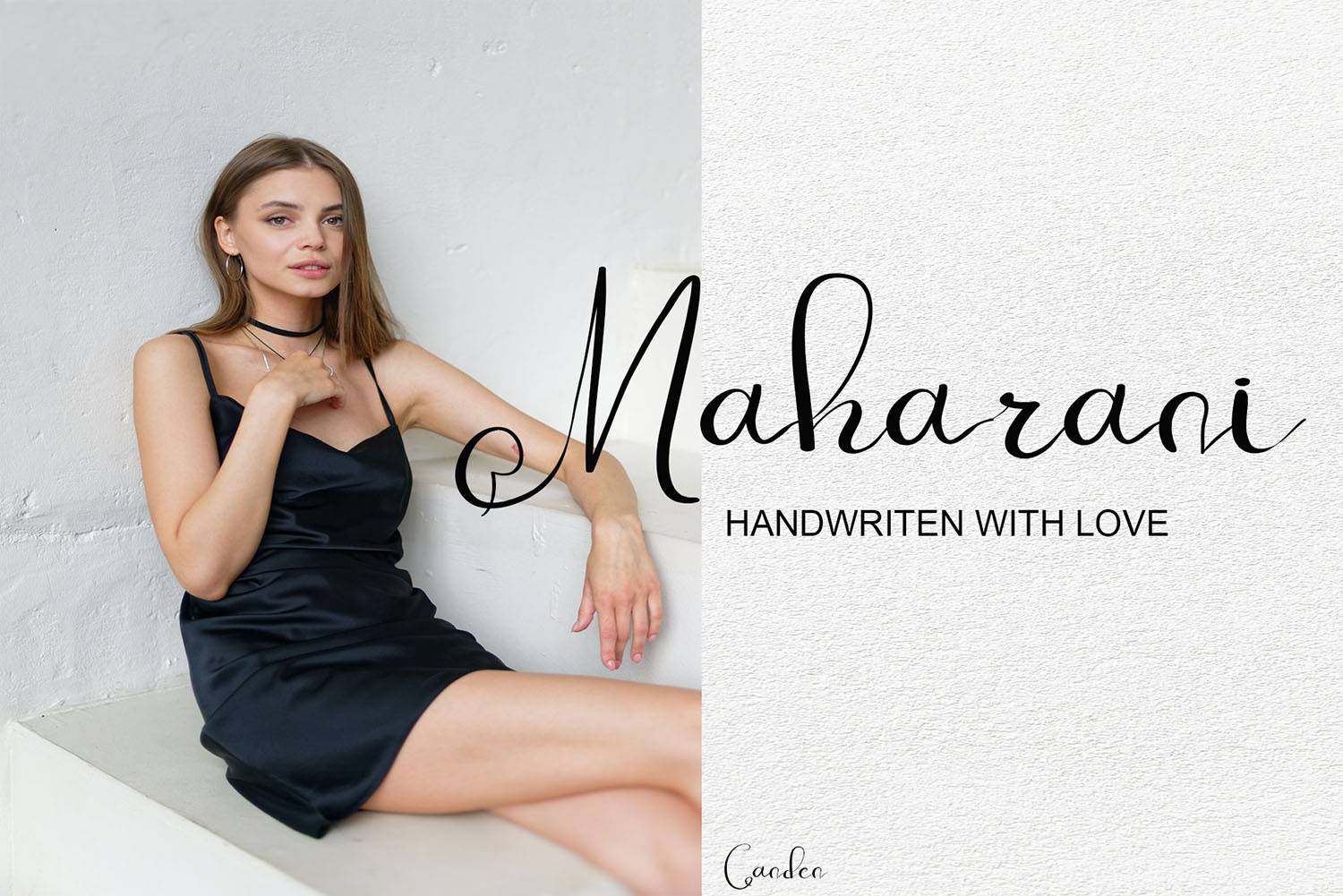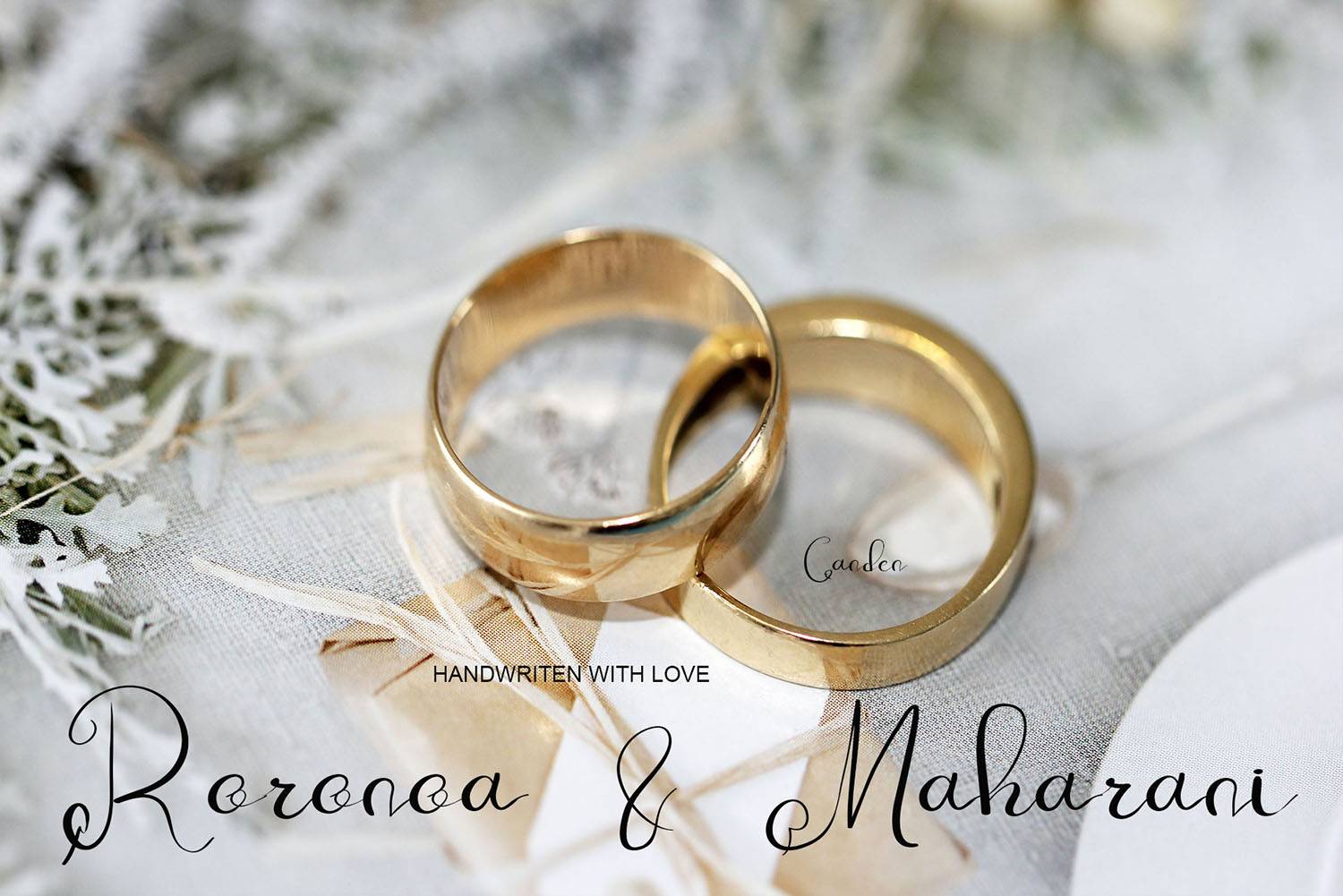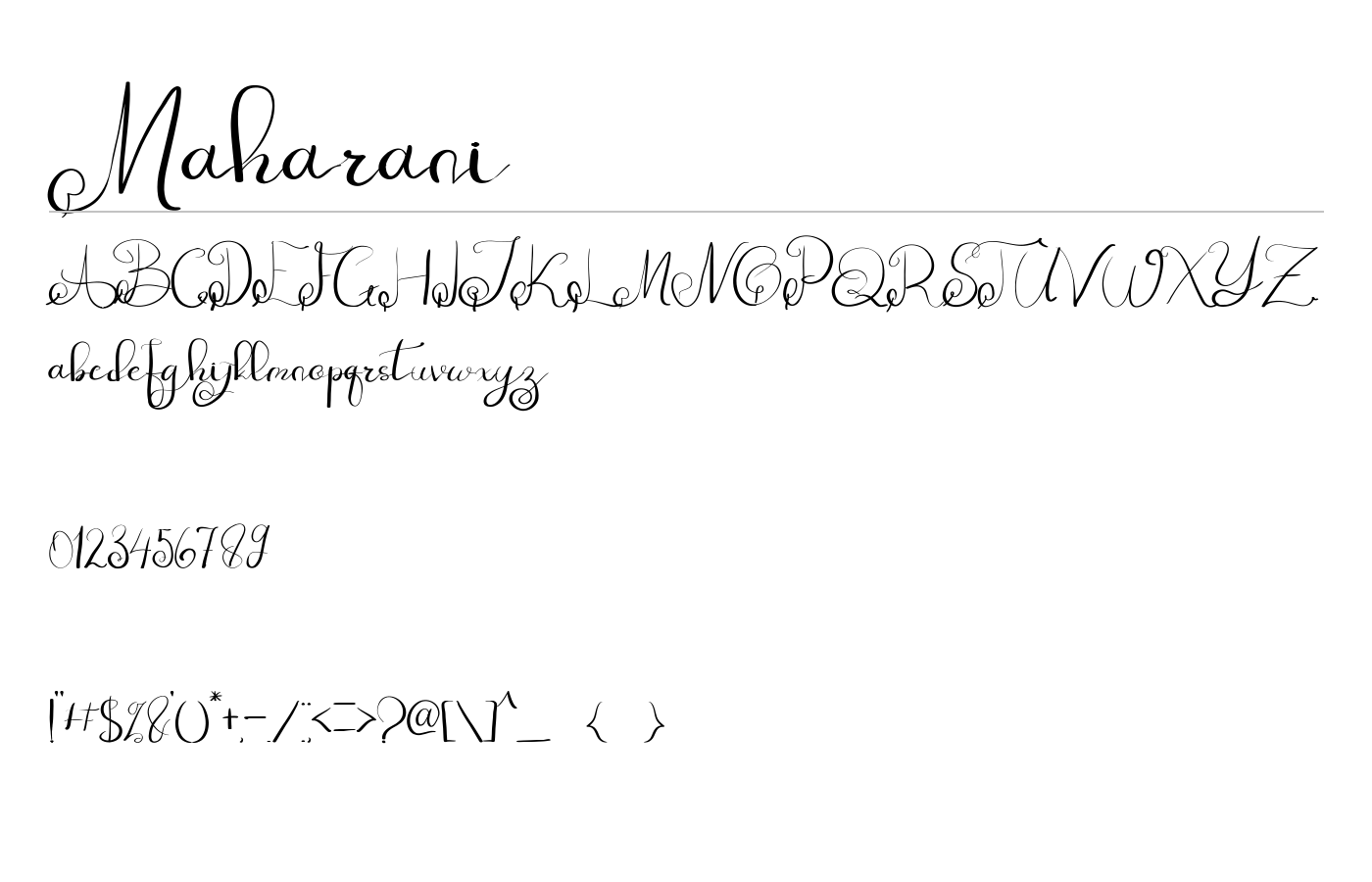
Maharani is an elegant handwritten script font characterized by its delicate, thin strokes and intricate swirling flourishes that evoke a sophisticated, ornamental feel. With its tall, narrow letterforms and graceful curves, it is perfect for luxury branding, wedding invitations, and artistic projects that seek a refined and romantic touch. This font shines in display uses where its unique decorative style can be fully appreciated without compromising readability.
Maharani Font
About Maharani Font